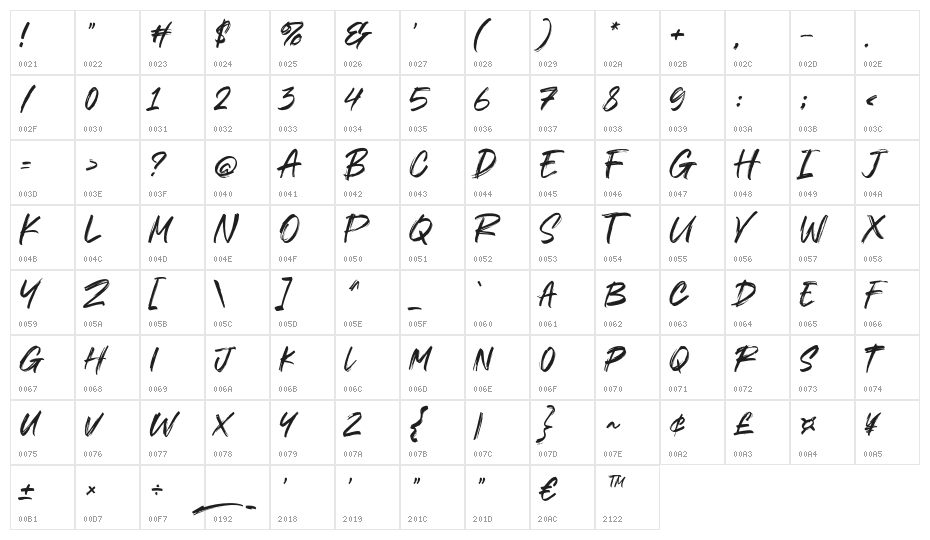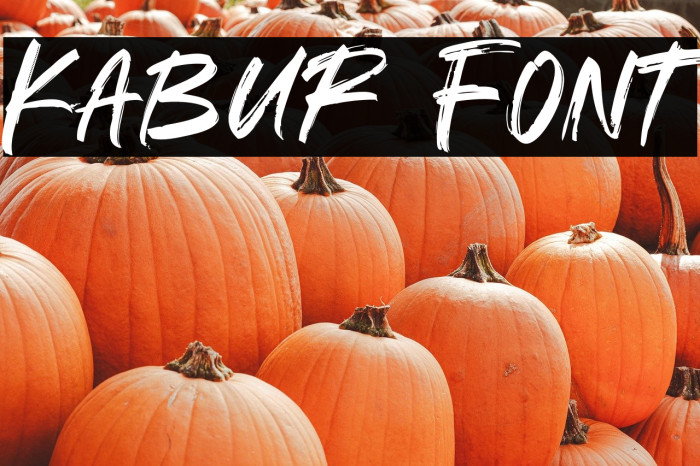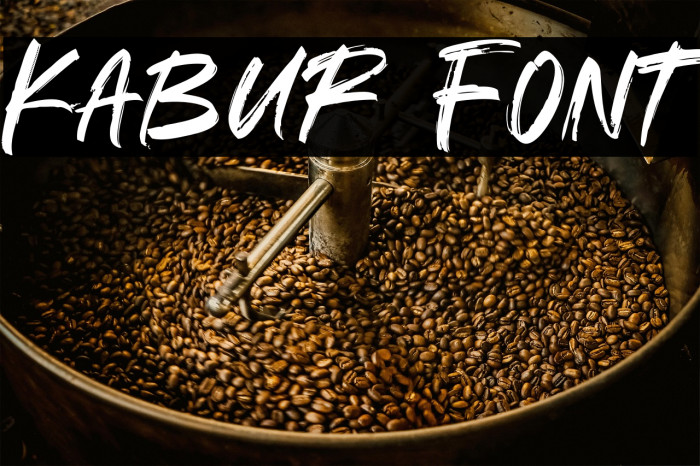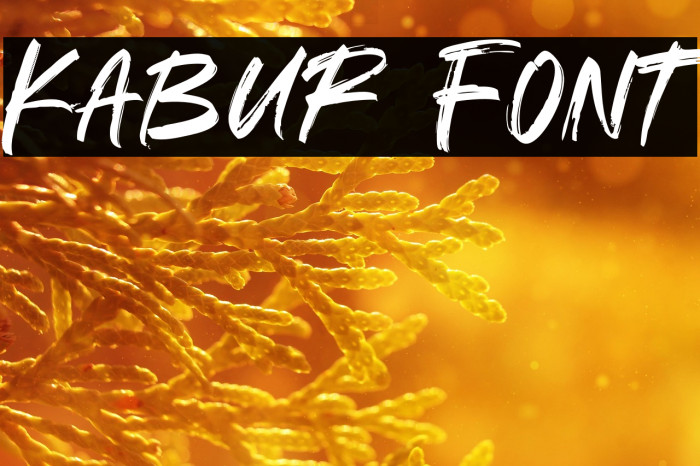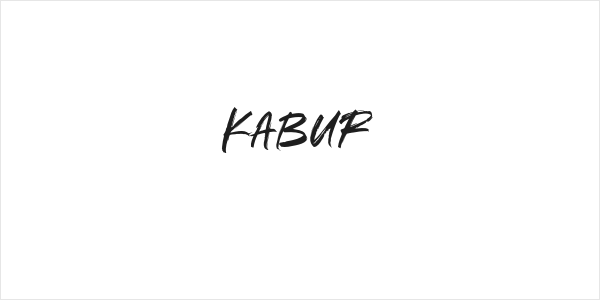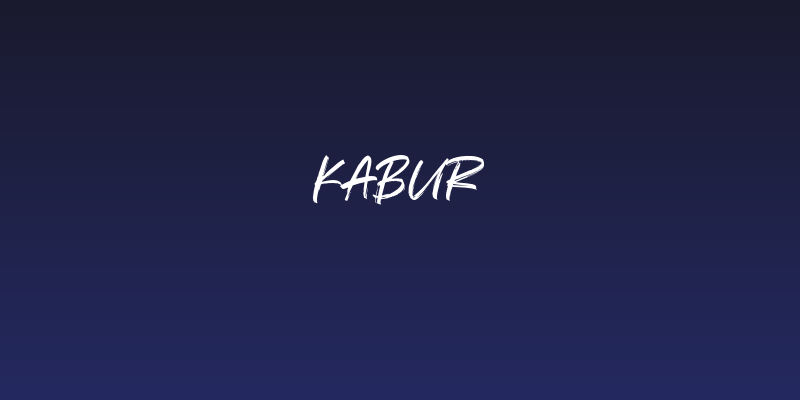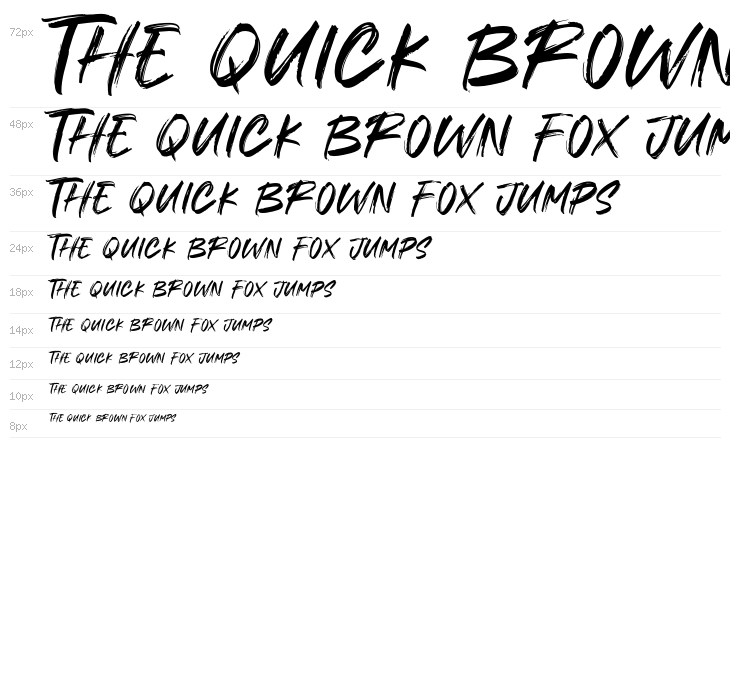
Kabur Font
Kabur Description
This font features a dynamic and energetic brush script style, characterized by its bold and expressive strokes. The letters have a hand-painted appearance, with varying thicknesses that create a sense of movement and spontaneity. The uppercase and lowercase letters maintain a consistent style, with a slightly slanted orientation that enhances the fluidity of the design. Numbers and special characters are crafted with the same attention to detail, ensuring a cohesive look across all elements. The overall impression is one of creativity and artistic flair, making it suitable for projects that require a personal touch.
| Use Case | Logos, Headlines, Posters |
| Proposed Projects | Ideal for branding, posters, invitations, and any project requiring a personal, artistic touch. |